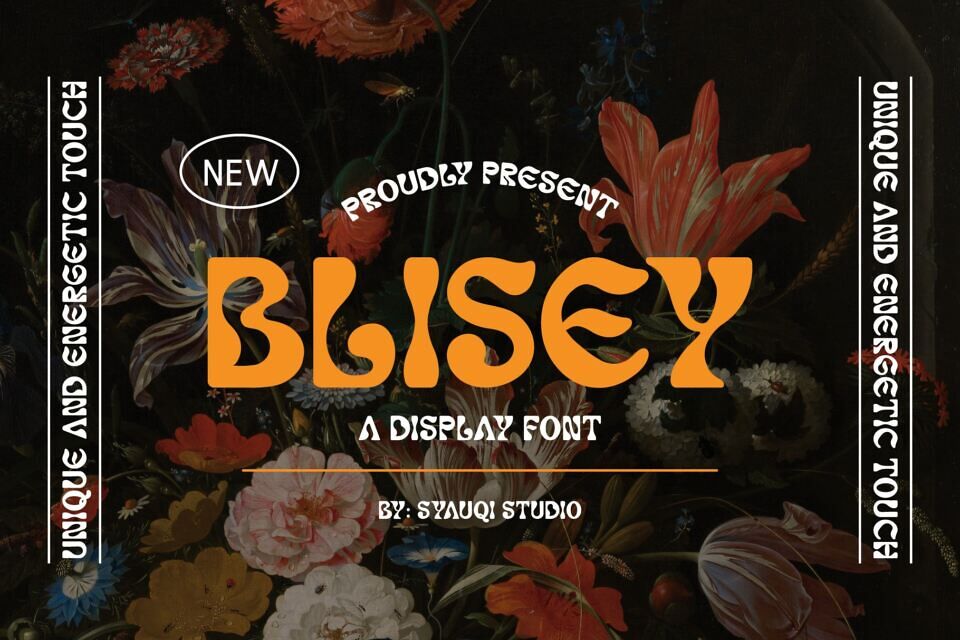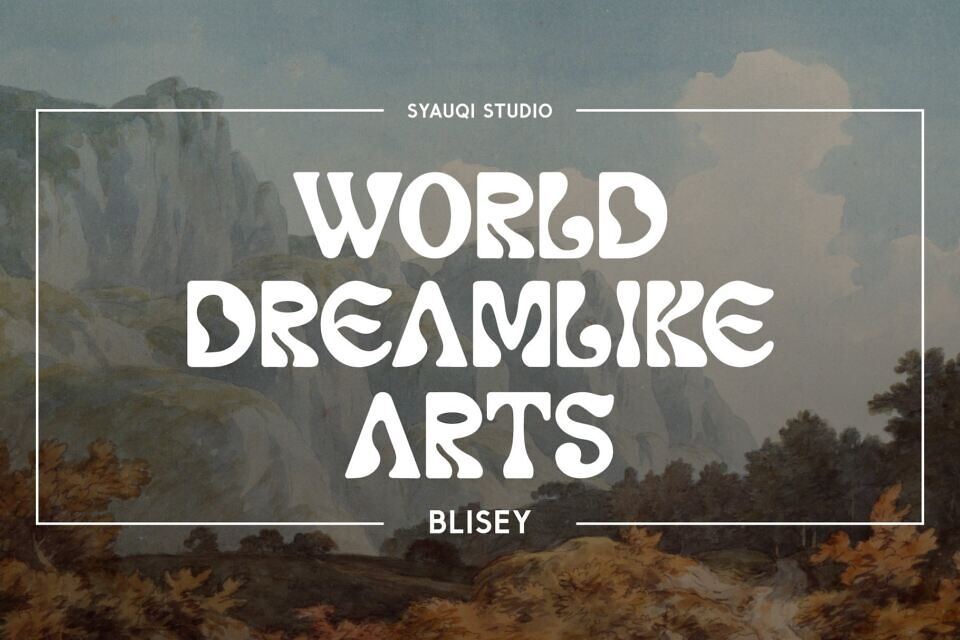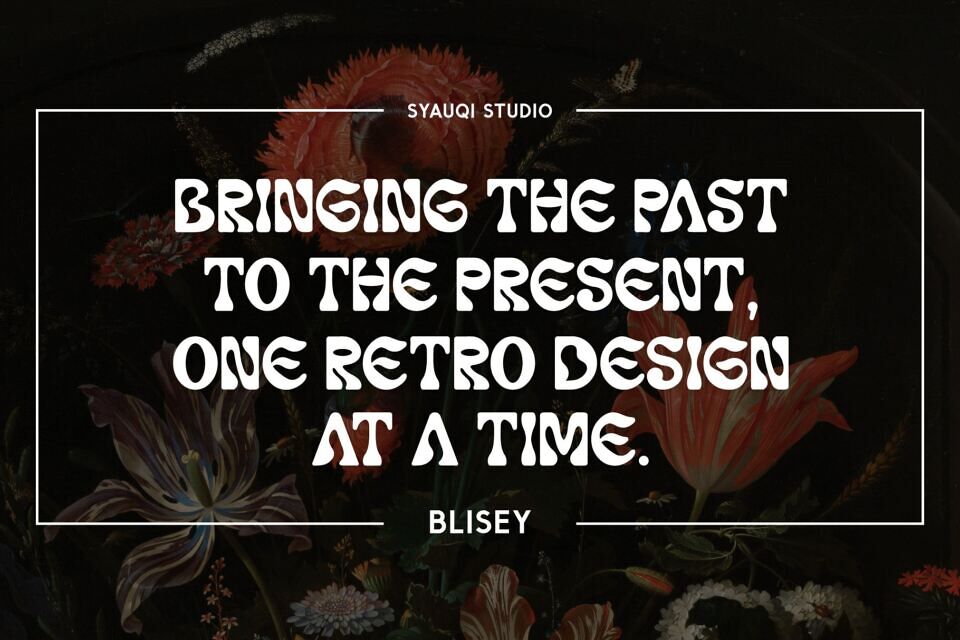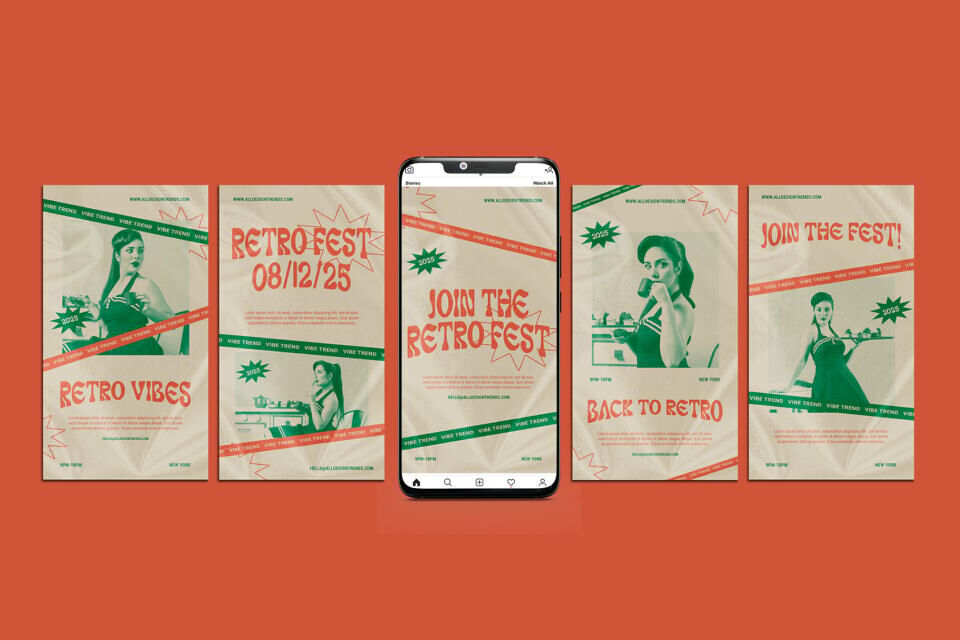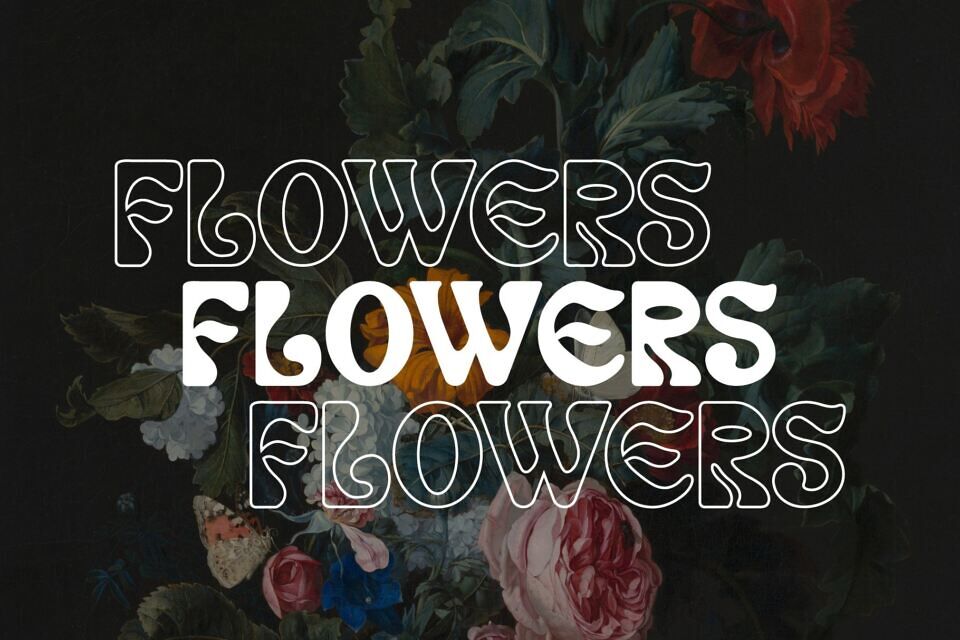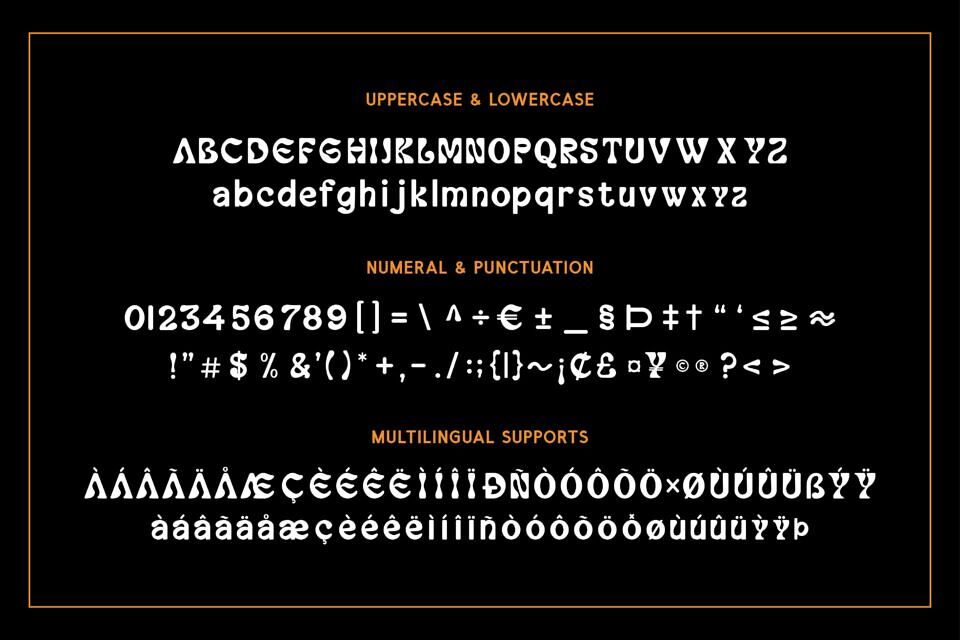
Blisey is a bold and vibrant display font designed to capture the essence of psychedelic art and retro aesthetics. With its unique curves and dynamic letterforms, Blisey makes an instant impression, perfect for designs that demand attention.
Whether you’re creating posters, album covers, or any project that celebrates the spirit of the ’60s and ’70s, this font adds an energetic and nostalgic touch.